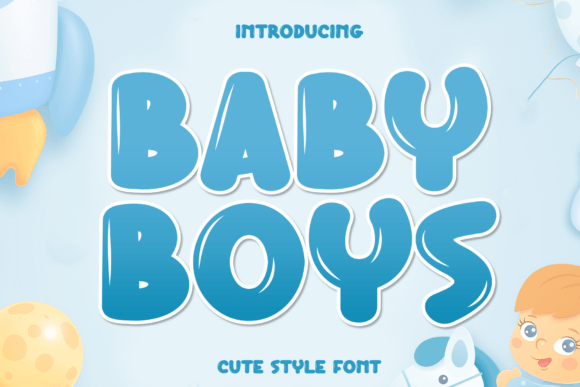
Unleashing Your Creativity: The Power of Baby Boys Font
Do you remember that moment when a font catches your eye, and suddenly, a creative idea bursts forth in your mind? For designers, it’s a familiar experience – a spark that ignites a new project or a fresh perspective on an existing one. For many, that moment often begins with a unique and captivating font.
Enter Baby Boys Font, a special creative product designed to elevate your designs and leave a lasting impression. With its latest style letters, this font is perfect for a wide range of applications, from wall displays and wedding invitations to social media post logos and product packaging. What sets Baby Boys Font apart is its versatility and ease of use, making it an invaluable tool for designers of all levels.
Baby Boys Font Key Features
- Font Family: Baby Boys Font
- Unique Characteristics:
- Hand-drawn and hand-painted style
- Includes over 500 glyphs, including letters, numbers, and symbols
- Supports multilingual characters
Designer Review: Baby Boys Font
Overall, I found the Baby Boys Font to be a cute and playful typeface, perfect for creating a whimsical atmosphere in various design projects. ✨
- Expressive and childlike feel, ideal for baby-related designs, nursery decor, or kids’ products.
- Consistent and uniform letter spacing, making it easy to read and set in different font sizes.
- Supports multiple languages, including Latin, Greek, and Cyrillic scripts.
However, there are some limitations:
- ⚠️ May not be suitable for formal or professional designs, as it can come across as too playful or immature.
- ⚠️ Limited in terms of font weights, with only a few styles available, which may limit its versatility.
- ⚠️ The font’s rounded edges and soft curves can make it difficult to read at very small sizes or in low-contrast designs.
Overall, I would recommend the Baby Boys Font for projects where a lighthearted and fun atmosphere is desired. While it may not be the best choice for formal or complex designs, it’s a great option for creating a playful and engaging visual identity.
Use the Baby Boys Font for creating playful and whimsical designs, such as baby shower invitations, nursery decor, and children’s party materials.
Pair the Baby Boys Font with other playful fonts or graphics for added visual interest.
Baby shower invitations and decorations
Nursery decor and wall art
Children’s party materials and invitations
Baby gift tags and cards
Alternatives to Baby Boys Font
Great Vibes Font is a beautiful, elegant script font that is perfect for adding a touch of sophistication to your designs. It is ideal for use in wedding invitations, birthday cards, and other special occasions. Compared to Baby Boys Font, Great Vibes Font has a more refined and delicate feel, making it a great choice for projects where a more formal tone is desired.
Lobster Font is a fun, cursive font that is great for adding a playful touch to your designs. It is ideal for use in posters, advertisements, and other marketing materials. Compared to Baby Boys Font, Lobster Font has a more casual and laid-back feel, making it a great choice for projects where a fun and youthful tone is desired.
Alex Brush Font is a stylish, handwritten font that is perfect for adding a touch of personality to your designs. It is ideal for use in social media posts, blog articles, and other online content. Compared to Baby Boys Font, Alex Brush Font has a more dynamic and expressive feel, making it a great choice for projects where a creative and artistic tone is desired.
Pacifico Font is a beautiful, elegant serif font that is perfect for adding a touch of sophistication to your designs. It is ideal for use in business reports, academic papers, and other formal documents. Compared to Baby Boys Font, Pacifico Font has a more classic and refined feel, making it a great choice for projects where a formal and professional tone is desired.